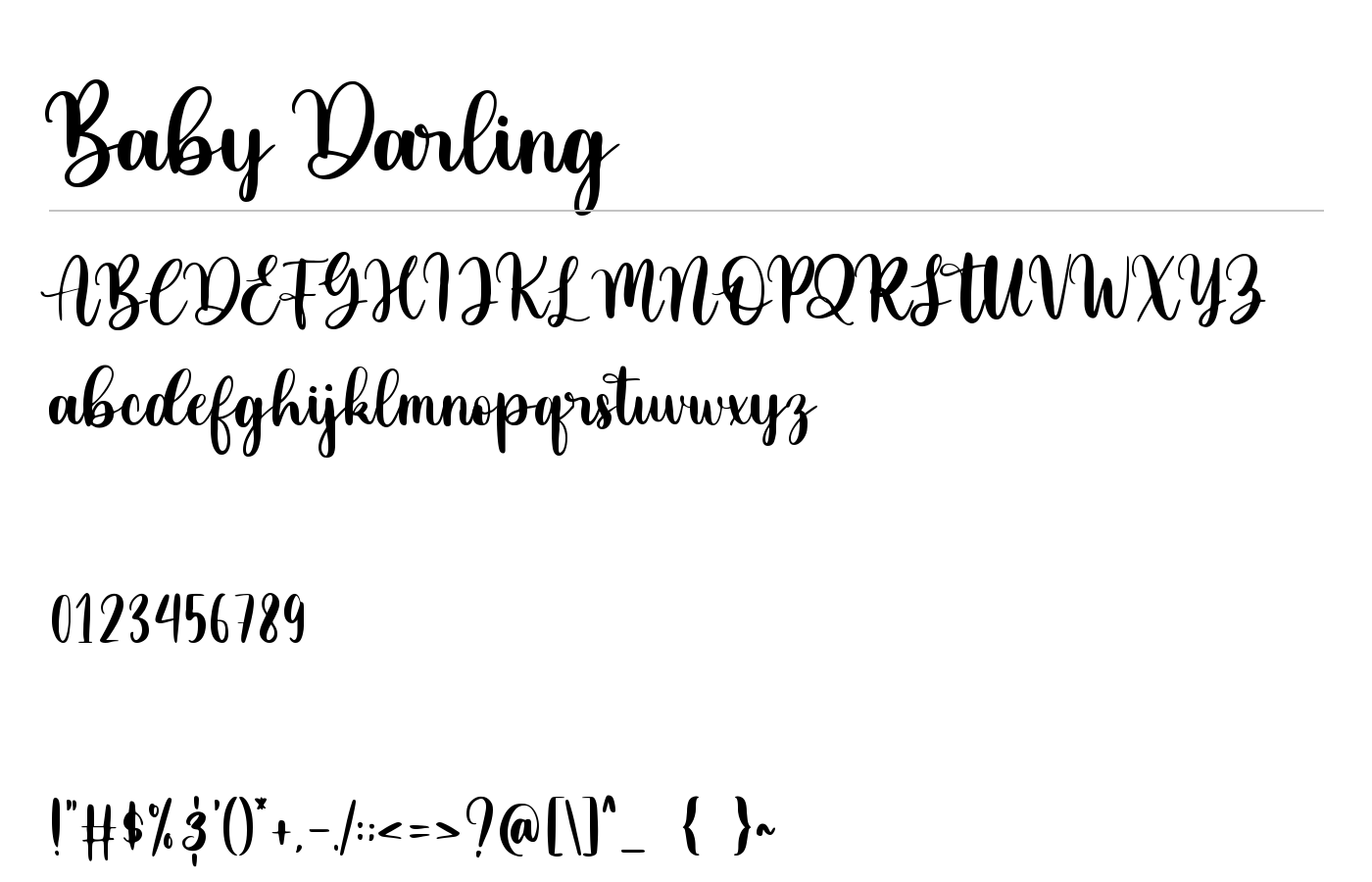
Baby Darling is a charming script font featuring smooth, flowing strokes with a playful yet elegant feel. Its medium weight and balanced letterforms make it perfect for creative projects needing a warm, friendly touch, such as invitations, branding, and packaging. This font brings a personal, handcrafted vibe that works beautifully for feminine, romantic, or casual design styles.
Baby Darling Font
About Baby Darling Font
| Font family | Baby Darling Font |
| Designer | Muhamad Yusron Billah |